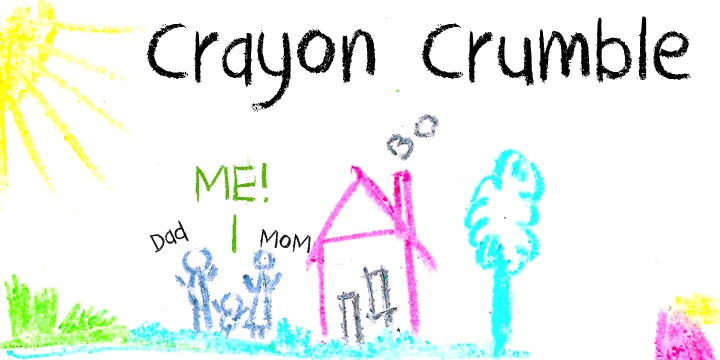
Crayon Crumble
Crayon Crumble is a hand drawn font family. This typeface has two styles and was published by Hanoded.
Crayon Crumble is exactly what it reads on the package: it was made using cheap crayons, since the cheapies crumble a lot.
Crayon Crumble is exactly what it reads on the package: it was made using cheap crayons, since the cheapies crumble a lot. It is a fun, kiddie font, with a grown-up look to it. Of course it comes with all the accents.